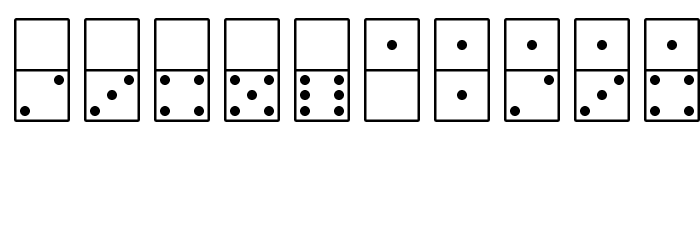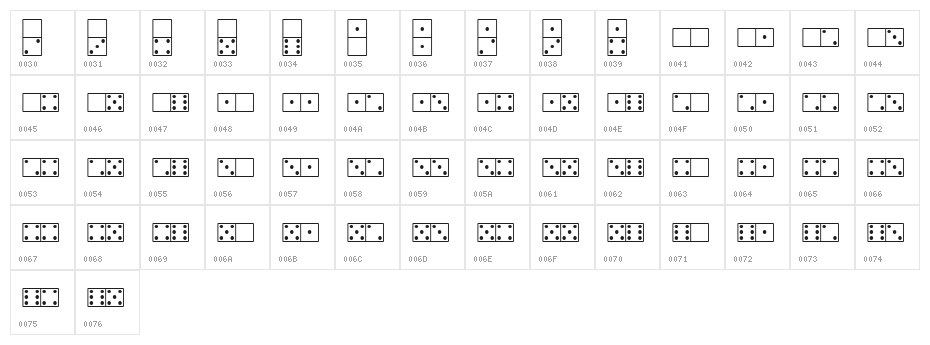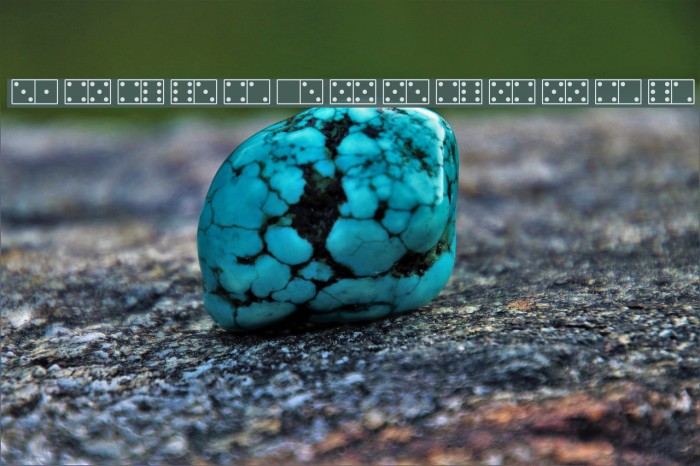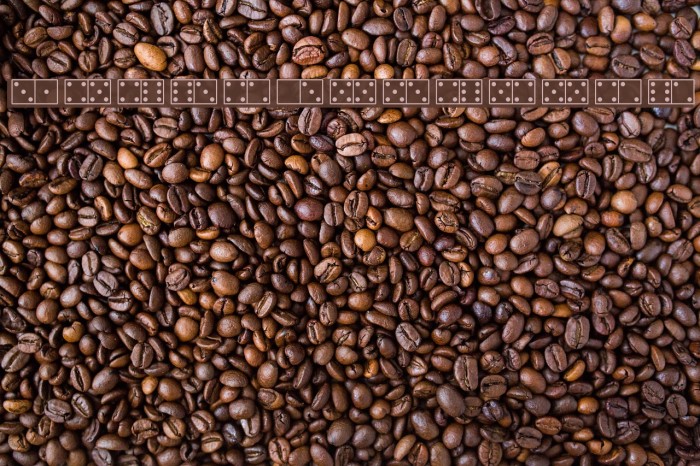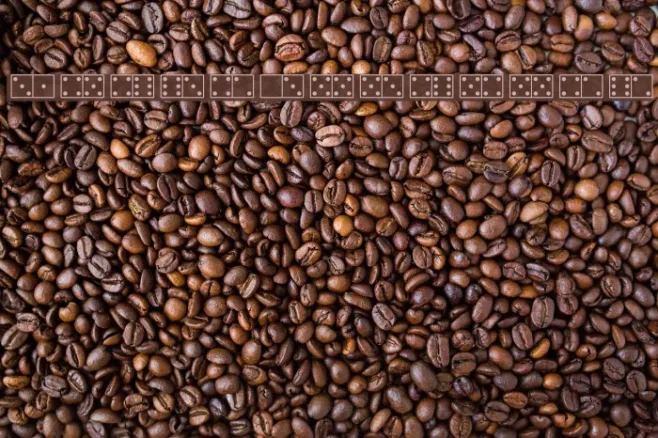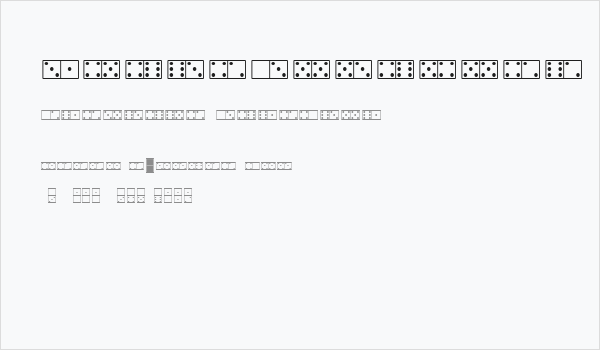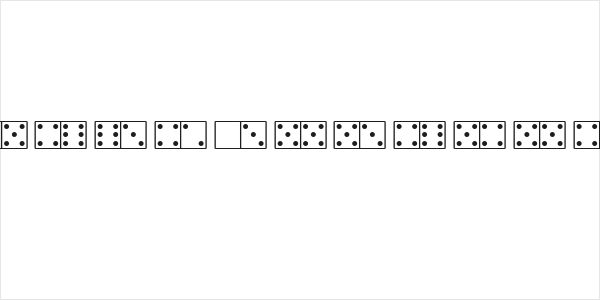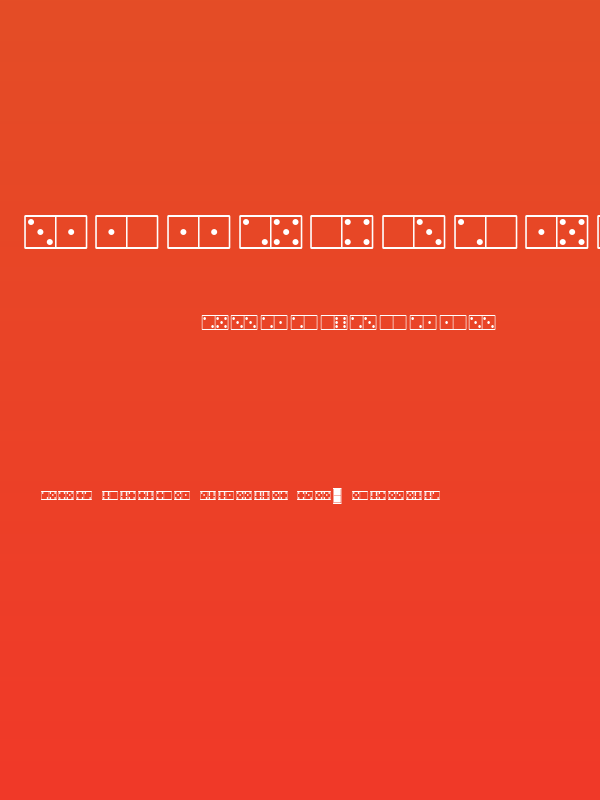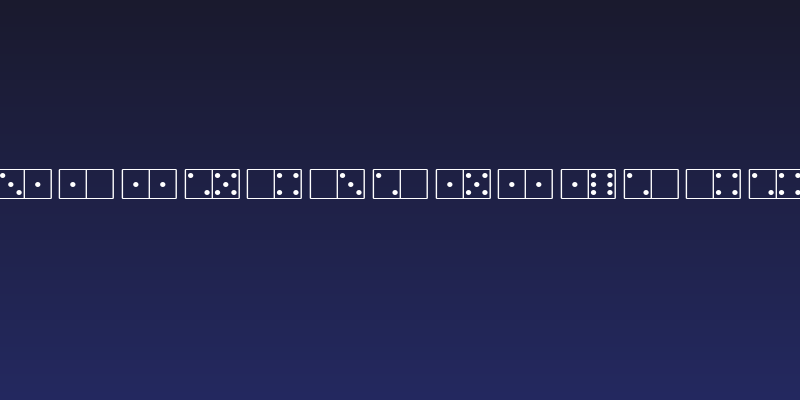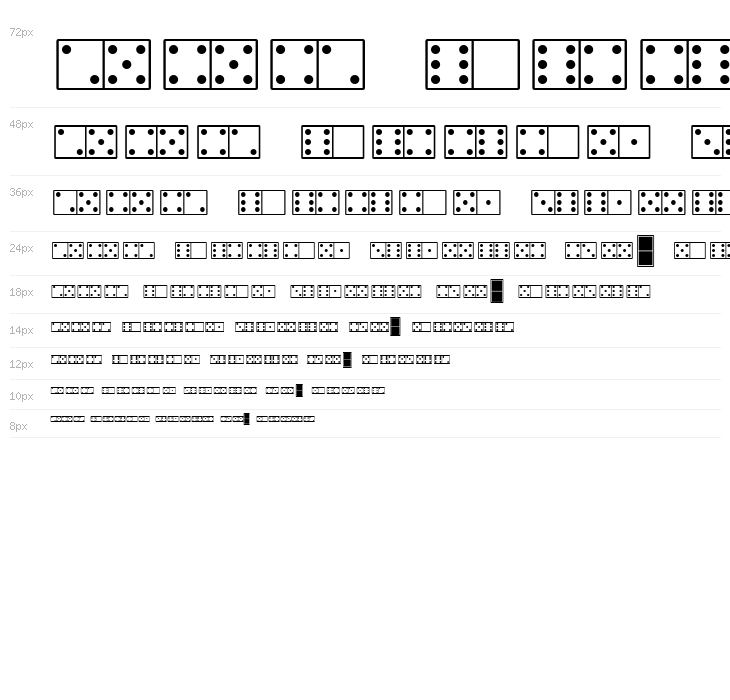
WhiteDominoes Font
WhiteDominoes Description
A playful, pictorial typeface where each character is represented by a domino tile with varying dot arrangements. The design uses clear, bold outlines and high-contrast black dots on a white background, mimicking real domino pieces. Characters are easily distinguishable by unique dot patterns, and spacing is consistent.
| Overall Style | Playful, Decorative, Novelty |
| Use Case | Logos, Headlines, Posters, Themed events |
| Proposed Projects | Board game designs, playful branding, educational materials, children's books, novelty posters. |